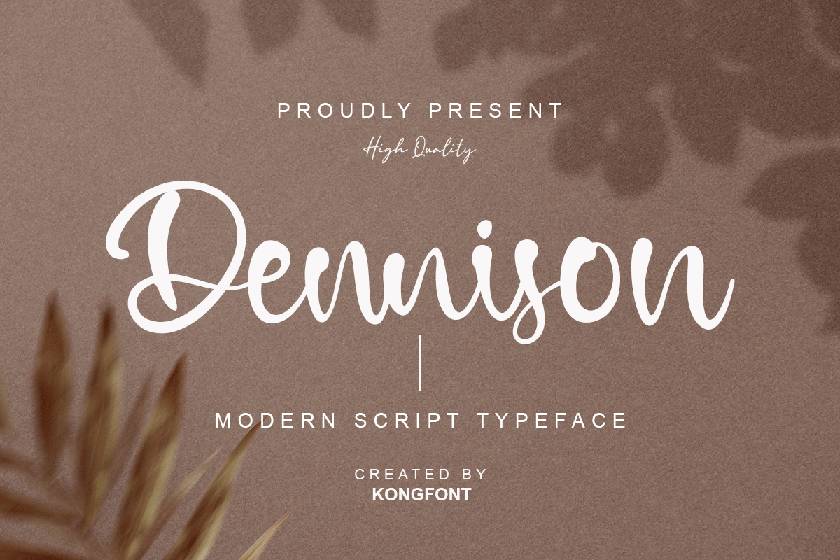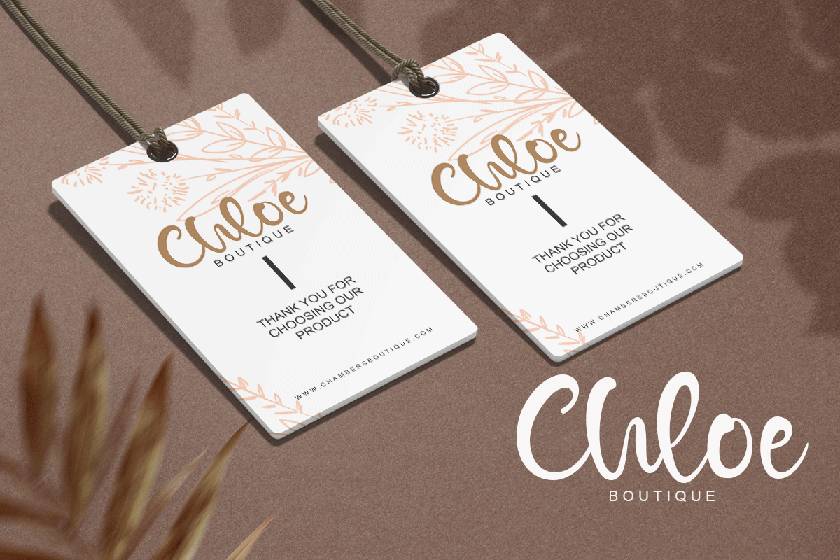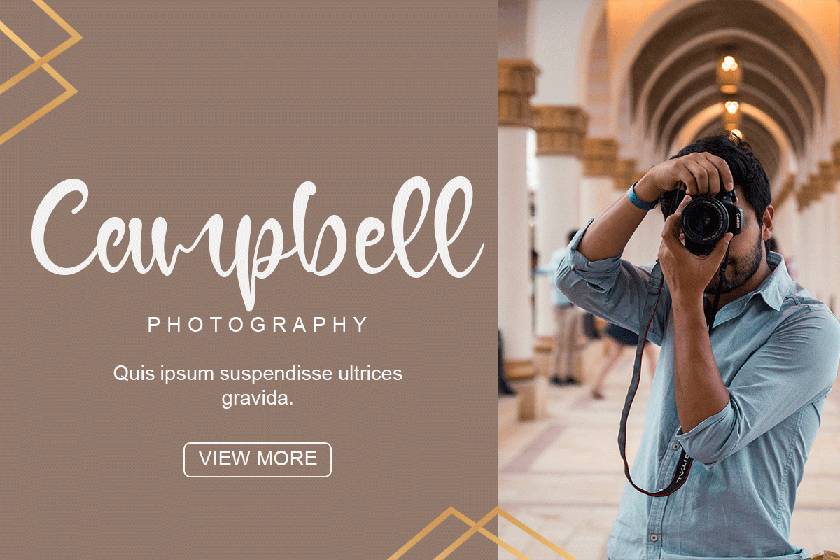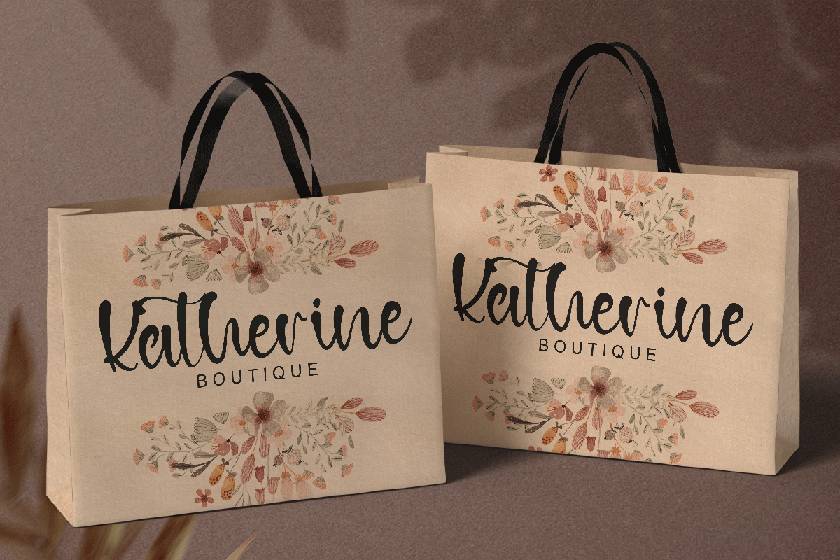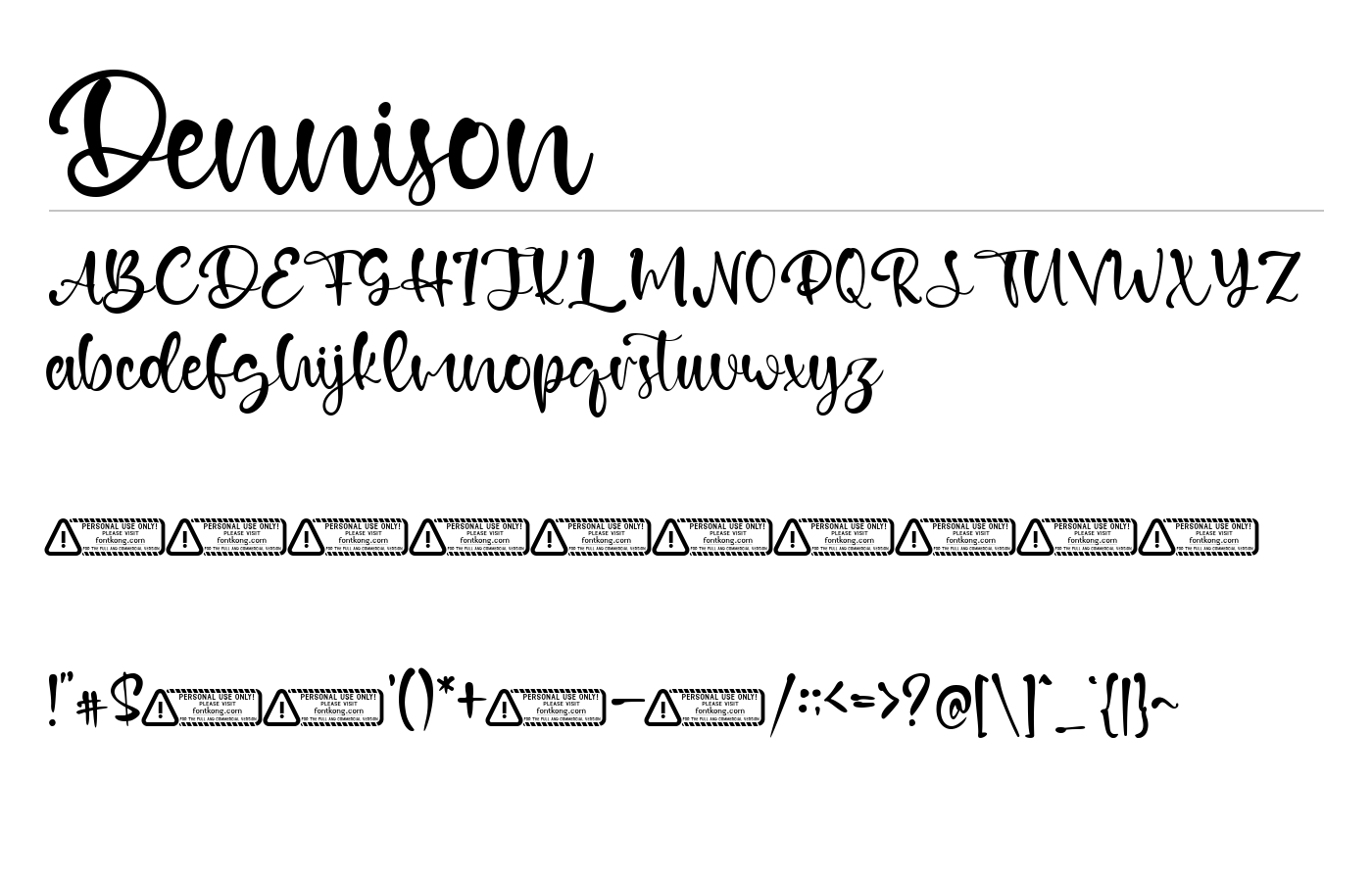
Dennison is a playful and elegant script font with smooth, flowing strokes and a friendly, hand-lettered feel. Its balanced weight and lively curves make it perfect for creative projects like invitations, branding, and headlines where a personal touch is desired. This font exudes charm and warmth, making it ideal for fashion, lifestyle, and boutique designs that want to convey approachability with a stylish flair.
Dennison Font
About Dennison Font